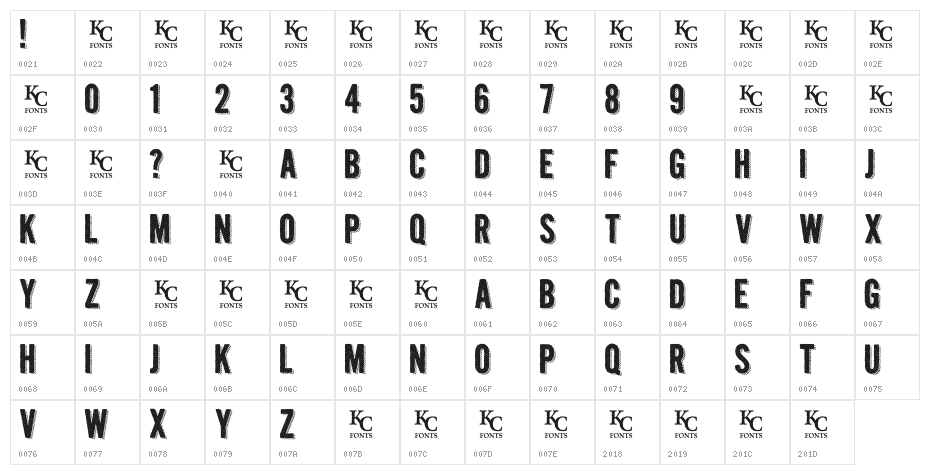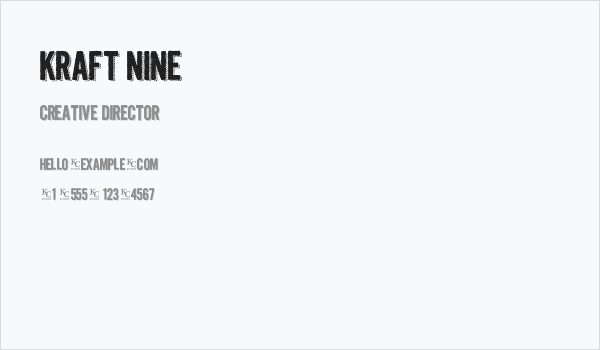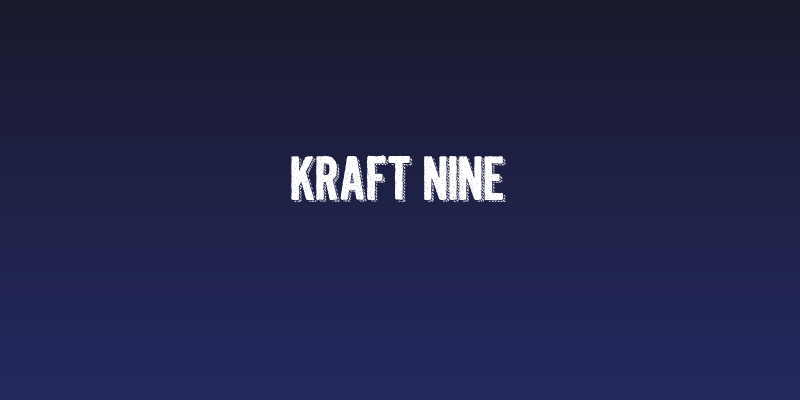
Kraft Nine Font
Kraft Nine Description
This font features a bold, textured style with a distressed, grunge-like appearance. The characters are uppercase and numerals, each with a rough, uneven edge that gives a handcrafted feel. The texture within the letters adds depth and a tactile quality, making it stand out in any design. The font is highly legible despite its decorative elements, with consistent weight and spacing that ensure readability. Its unique style is perfect for projects that require a strong, impactful visual statement.
| Proposed Projects | Ideal for posters, album covers, branding, and any project needing a bold, gritty aesthetic. |